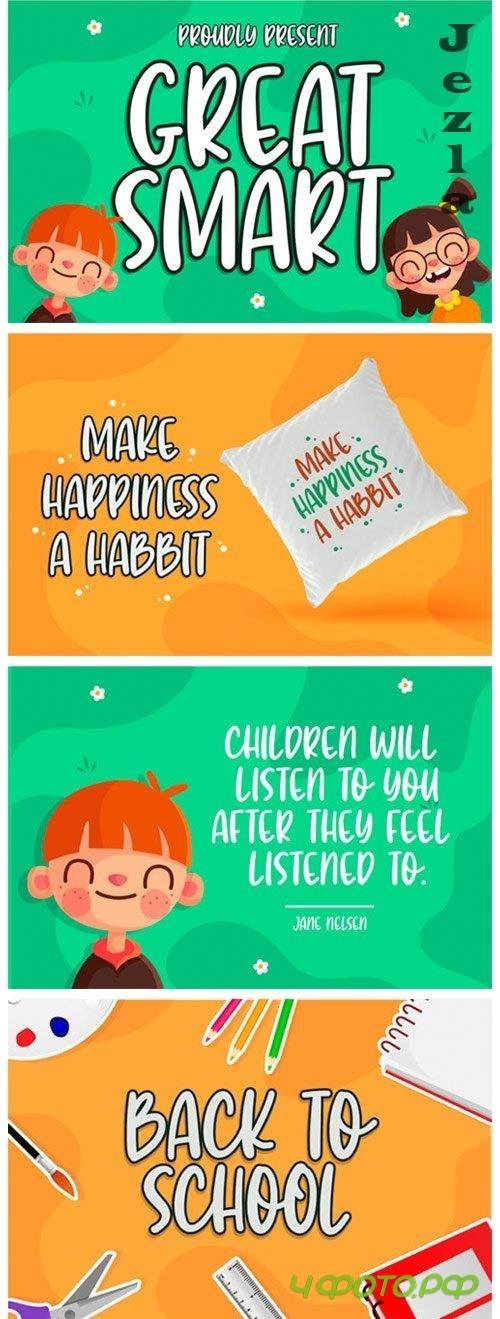
Great Smart Font
Great Smart embodies fun, quirkiness and authenticity. This enchanting handwritten font will turn any creative idea into a true standout. Get creative with its childlike playfulness, and use it to brighten up any kids and school project!